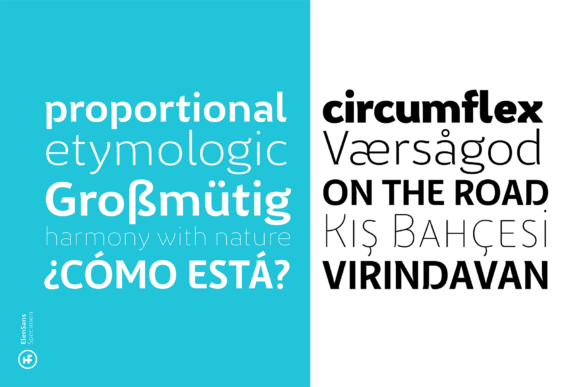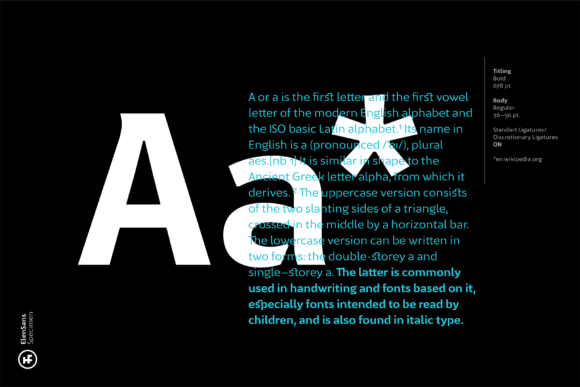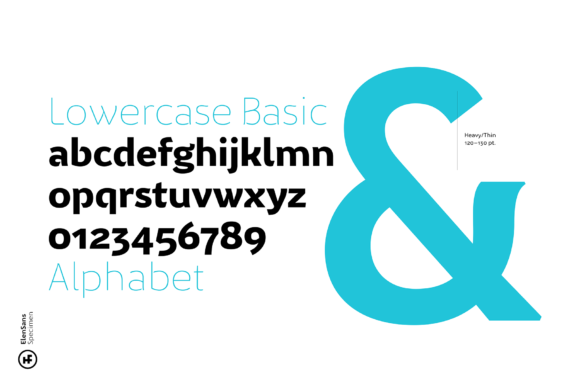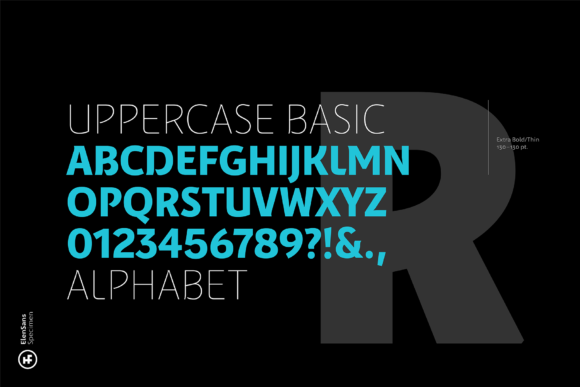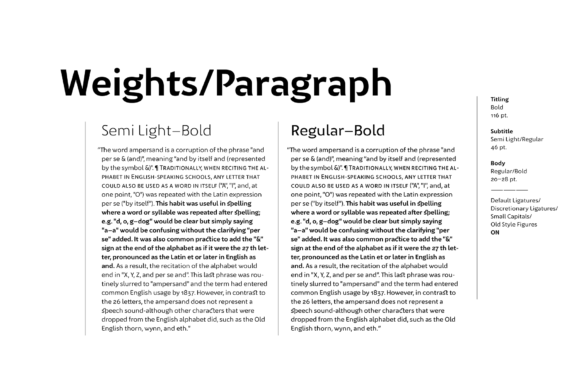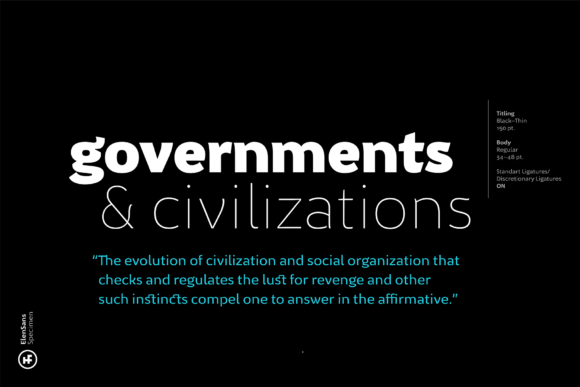
Unlock Your Creativity with Elen Sans Font
Have you ever been working on a project, staring at a blank page, and suddenly a spark of inspiration hits? That’s exactly what happened when I first laid eyes on the Elen Sans Font. Its clean and minimalist design instantly caught my attention, and I knew I had to learn more.
The Elen Sans Font is a versatile sans serif font that can seamlessly blend into a wide range of projects, from sleek corporate websites to trendy blog designs. Its purpose is to provide a clean and neutral background that allows your content to shine. Whether you’re a seasoned designer or just starting out, Elen Sans Font is a valuable addition to your toolkit.
What sets Elen Sans Font apart is its ability to elevate your creative ideas without overpowering them. Its subtlety makes it the perfect choice for designers looking to create a cohesive and professional look that resonates with their audience.
Elen Sans Font Key Features
- Font Family: Elen Sans is a sans-serif font family designed for digital use, offering a clean and modern look.
- Font Size: Elen Sans is available in multiple font sizes, ranging from 12 to 72 points, catering to various design needs.
- Resolution: Optimized for high-resolution displays, Elen Sans is ideal for use in digital media, including web, mobile, and print design.
- Unique Characteristics: Elen Sans features a unique blend of geometric and organic elements, resulting in a distinctive and modern aesthetic.
- Font Weight: Available in 5 font weights (Thin, Light, Regular, Bold, Black), allowing designers to achieve a range of visual effects.
Elen Sans Font Review
As a designer, I’ve had the chance to work with Elen Sans Font, and I must say it’s a solid choice for digital typography. ✨ One of the things I appreciate about Elen Sans is its clean and modern aesthetic. It’s perfect for creating a sleek and professional look on digital platforms.
The font’s versatility is another strong point. ✨ It works well in a variety of contexts, from body text to headings, and it’s suitable for a range of industries, including tech, finance, and healthcare.
Here are some of the key features that make Elen Sans stand out:
- ✨ Clean and modern aesthetic
- ✨ Versatile and suitable for a range of industries
- ✨ High-quality digital rendering
However, I do have a few concerns:
⚠️ Elen Sans may not be the best choice for projects that require a more traditional or serif-based look. Additionally, some users may find the font’s weight and spacing to be a bit inconsistent at smaller sizes.
Overall, I think Elen Sans is a great addition to any designer’s toolkit. It’s a solid choice for digital typography, and its versatility makes it a great option for a range of projects.
Elen Sans Font is suitable for:
- Corporate branding and marketing materials.
- Modern and minimalist website design.
- Infographics and data visualization.
Getting the Most Out of Elen Sans Font
To get the most out of Elen Sans Font, use it in combination with other clean and minimalist design elements, such as:
- A simple color palette.
- A clean and minimalistic layout.
- Choose a light or regular weight for the font to keep the design airy.
- Use a large font size (e.g., 36-48pt) to make the quote stand out.
- Combine with a simple background color or texture to let the font be the focus.
- Add a subtle shadow or gradient to give the font some depth.
- Use a bold line or icon to create a striking contrast with the font.
- Use a combination of light and regular weights to create visual hierarchy.
What font styles and weights are available in Elen Sans Font?
Elen Sans Font includes a range of font styles and weights, including Thin, Light, Regular, Medium, Bold, and Black. Each weight has corresponding italic and oblique styles. You can use these font styles and weights to create a consistent visual identity for your design projects.